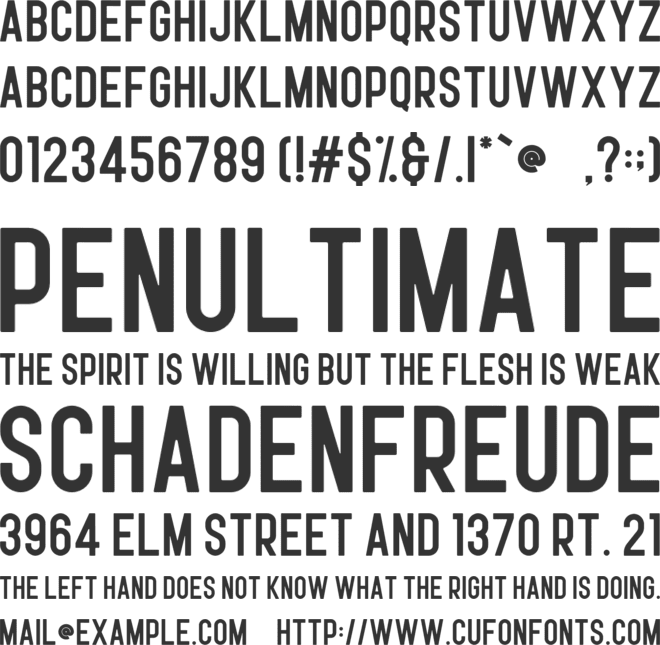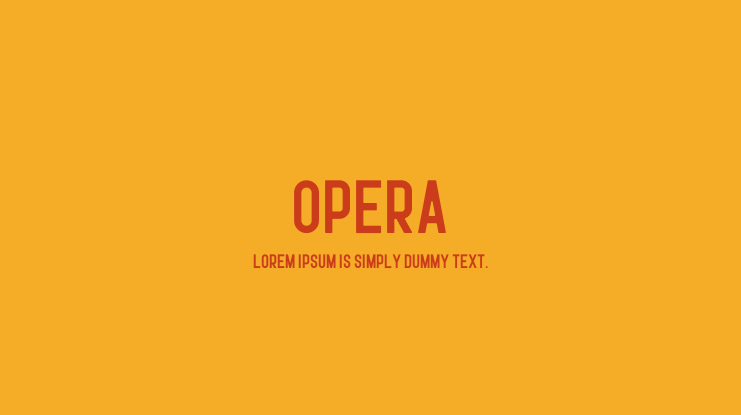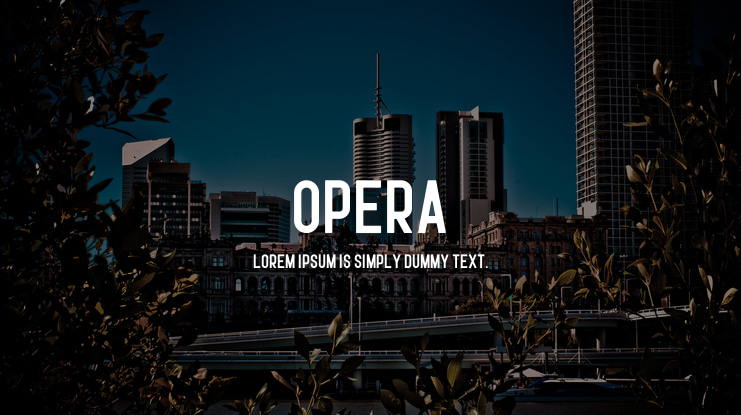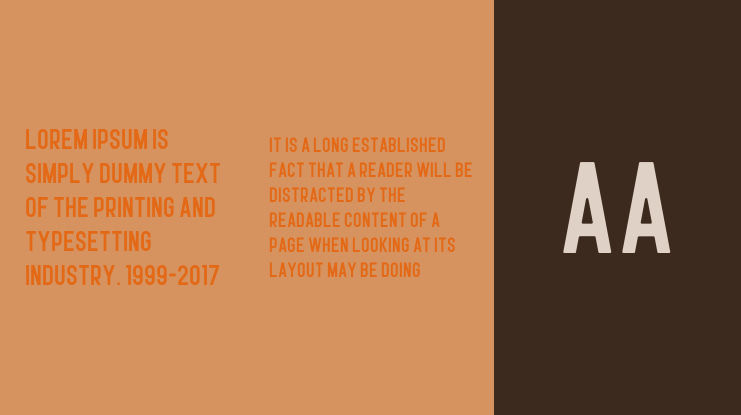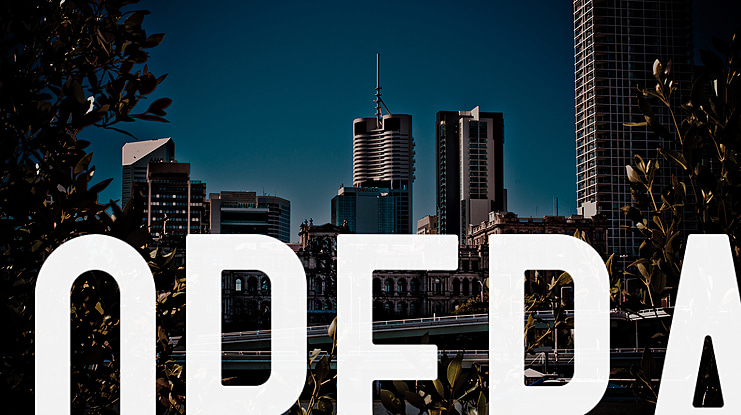
Opera Font
Wahyu Rahmawan
Opera is a bold sans-serif font family. The combination of simple and geometric elements renders a bold design. Opera family includes 10 font styles. It can be used to create almost all types of design projects like print materials and web design. Just use your imagination and your project will become more alive and vivid than ever with one of the Opera fonts. You want to make a greeting card or a package design, or even a brand identity? Feel free to play with all font styles, that will lead you to your next successful project.
Created by Factory738.